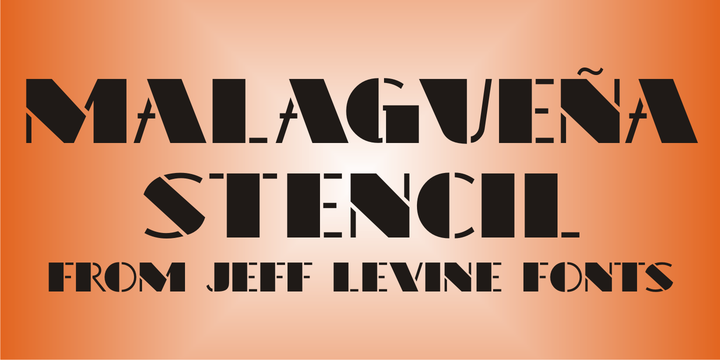
Malaguena Stencil JNL
by Jeff Levine
Malaguena Stencil JNL was derived from hand lettering found on an Art Deco-era piece of vintage sheet music for this familiar tune.
According to Wikipedia:
“Malagueña is the feminine form of the Spanish language adjective malagueño/ malagueña, ‘pertaining to Málaga’, a Spanish port city.” More…
Additionally:
"Malagueña", is a song by Cuban composer Ernesto Lecuona; written in 1928 it was originally the sixth movement of Lecuona’s Suite Andalucia, to which he added lyrics in Spanish. The song has since become a popular, jazz, marching band, and drum corps standard and has been provided with lyrics in several languages.